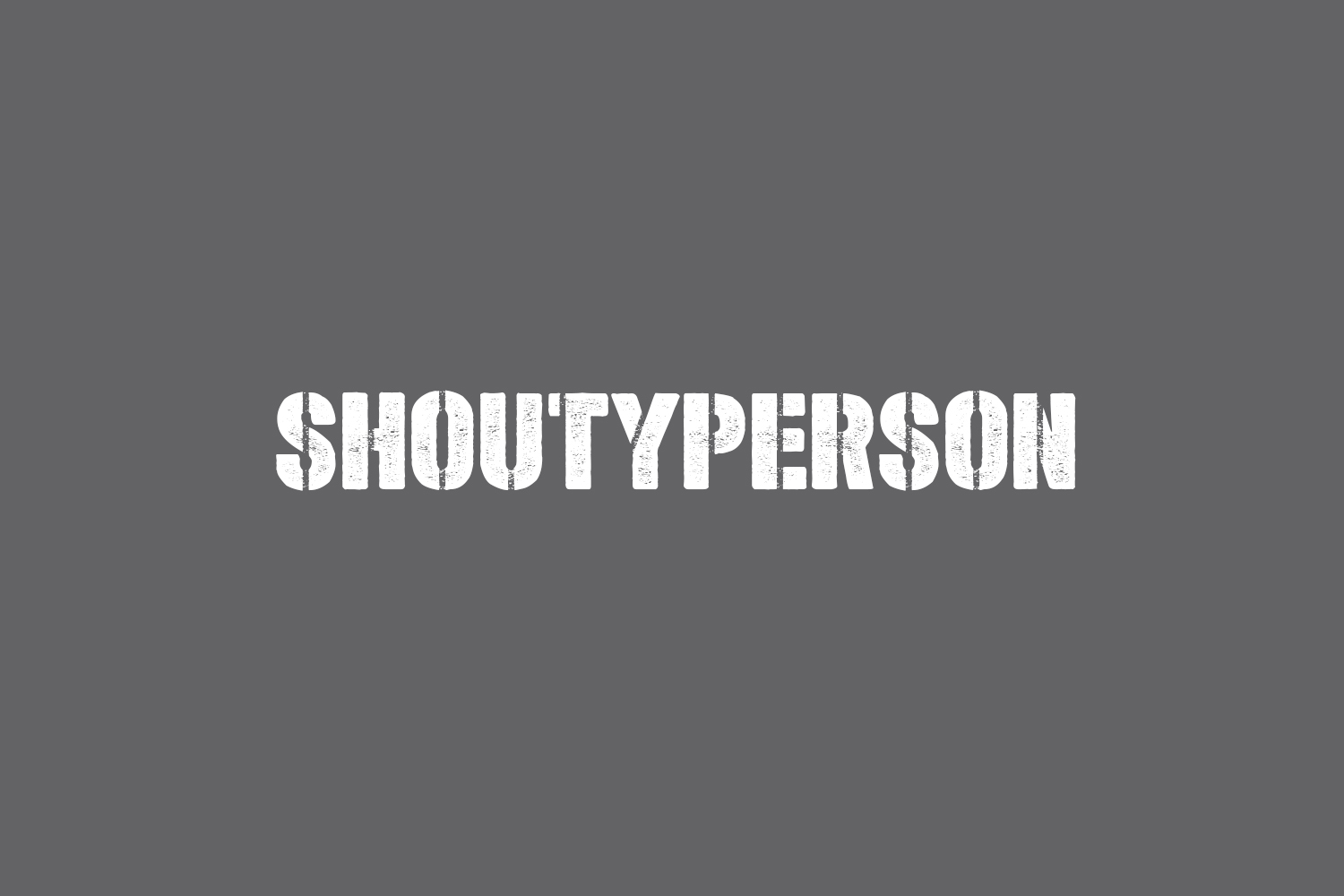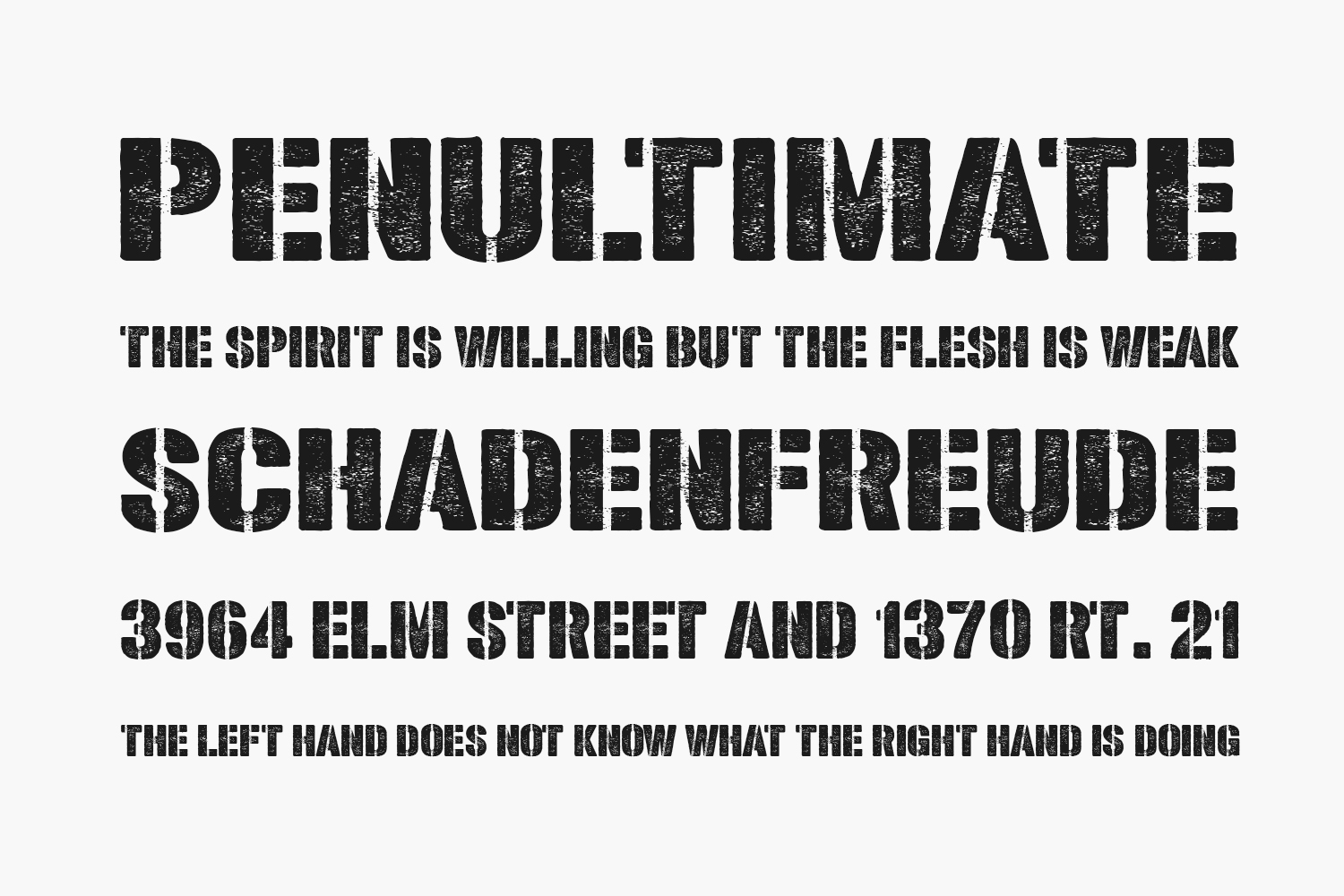
Shoutyperson Free Font is a bold, all caps display font featuring the perfect amount of trendiness. Whether you’re using it for crafting, digital designing, presentations, or greeting card making, it’s perfect. Shoutyperson Free Font was designed by Chequered Ink and is free for personal use only. Please purchase the full version for commercial use.